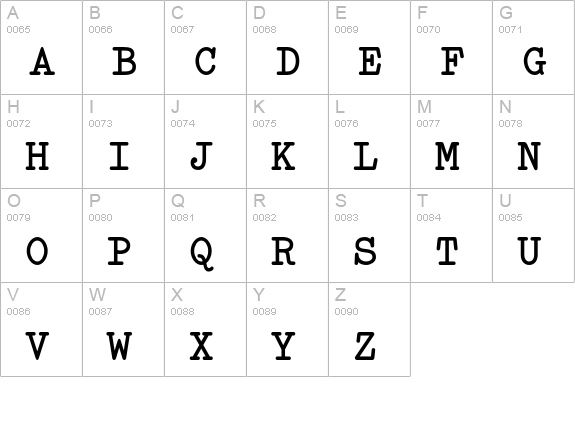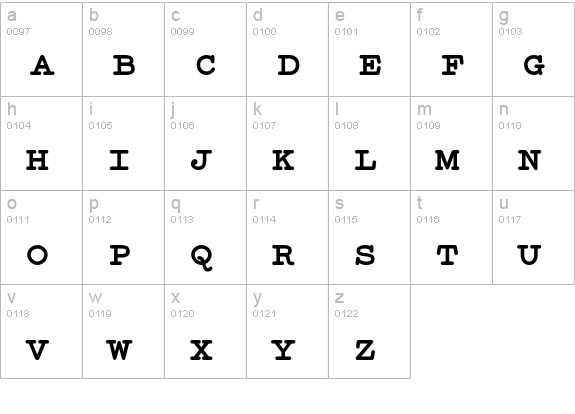
Elementa SC Bold Font Details
Elementa SC Bold is a strong, high-contrast variant in the Elementa typeface family \xE2\x80\x94 well suited to headlines, attention-grabbing titles, and strong calls-to-action.
Elementa SC Bold is a modern and stylish font that exudes confidence and sophistication. With its bold and eye-catching design, this typeface is perfect for making a strong statement in any design project. Whether you're working on branding, advertising, or editorial design, Elementa SC Bold will add a touch of elegance and professionalism to your work. What's even better is that Elementa SC Bold is available for free download at FontsMarket.com. Now you can elevate your designs with this stunning font without any cost. Don't miss this opportunity to enhance your projects with the timeless beauty of Elementa SC Bold. Download it now and see the difference it can make in your designs.